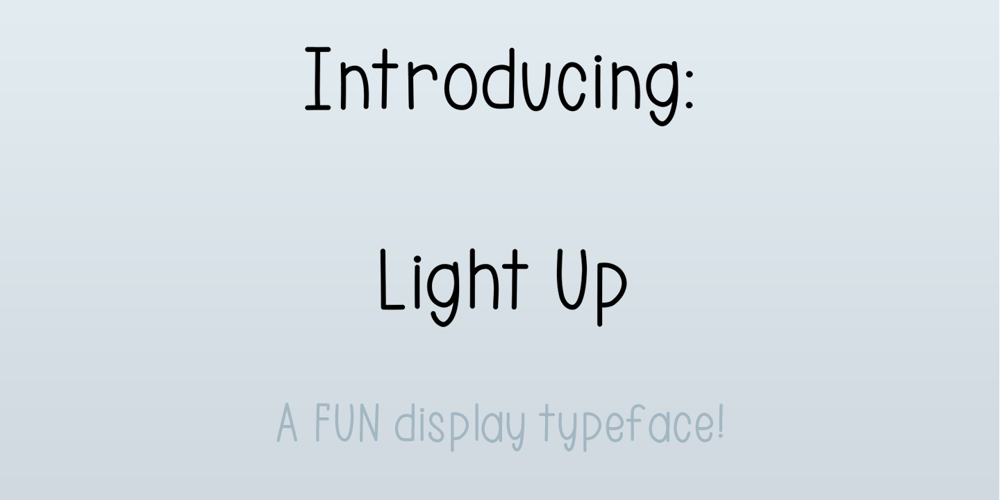
Light Up Font Family was designed by Maria Eduarda Obladen and published by SweetCake. Light Up contains 10 styles and family package options. Light Up is a fun versatile display typeface that can be used in various ways, from company logos to eco bags. It has a complete family set, including italic versions. It also includes accented Latin characters for multi-lingual support.